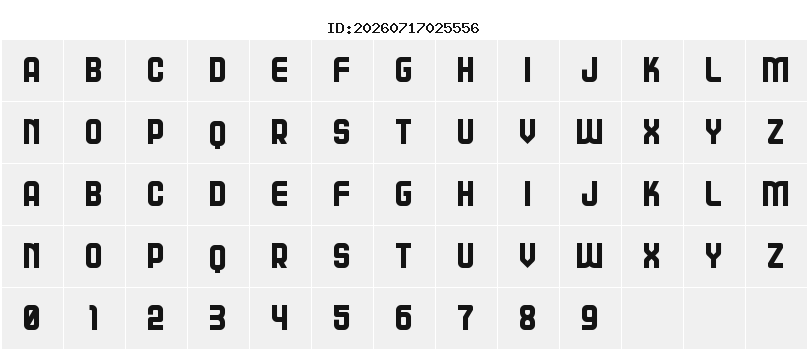
• Designer: Angoes25
About A25-SQUANOVA.ttf
A25-SQUANOVA.ttf is a modern, elegant sans-serif font designed for ultimate readability and visual harmony. Perfect for branding, headlines, web design, and print materials.